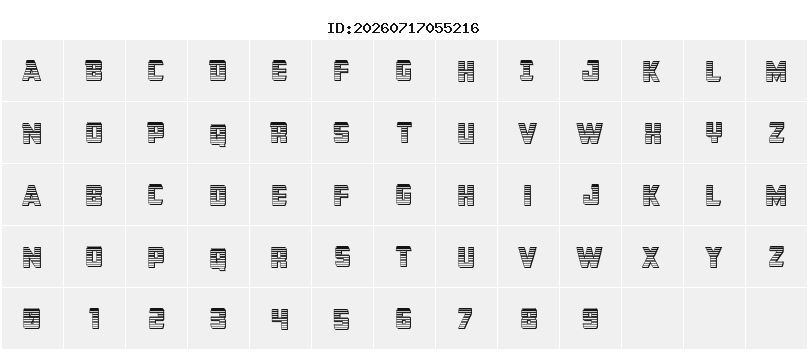
About Buchanan Chrome.ttf
Buchanan Chrome.ttf is a modern, elegant sans-serif font designed for ultimate readability and visual harmony. Perfect for branding, headlines, web design, and print materials.